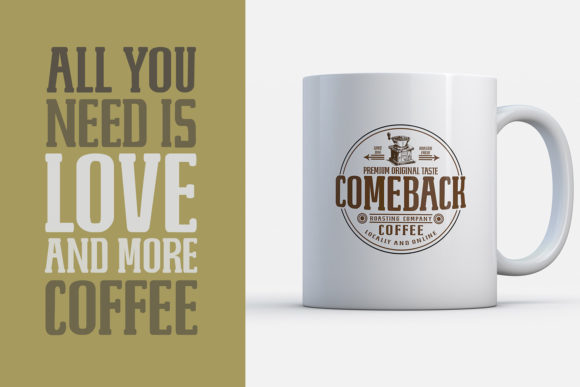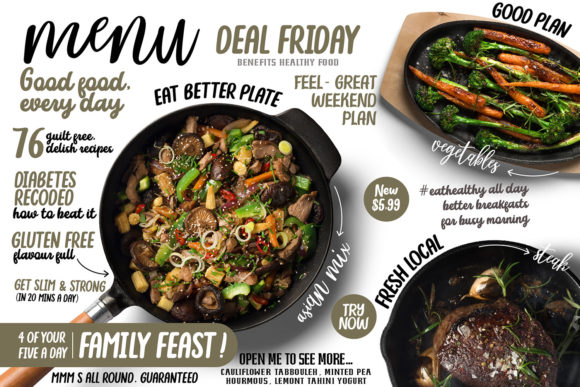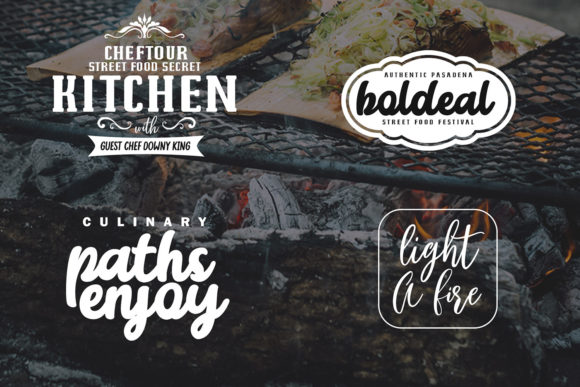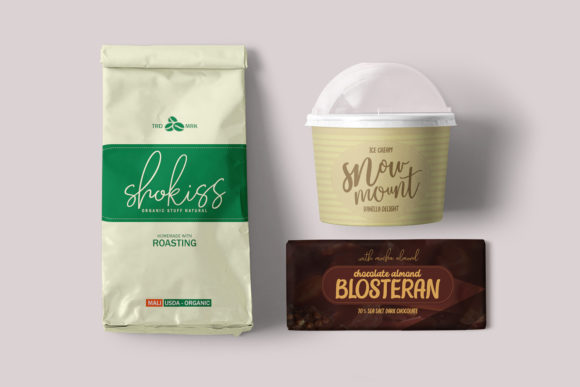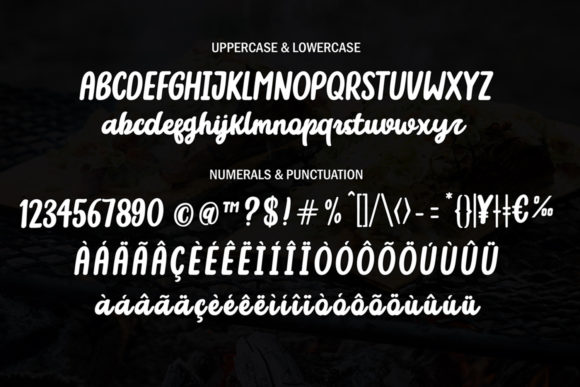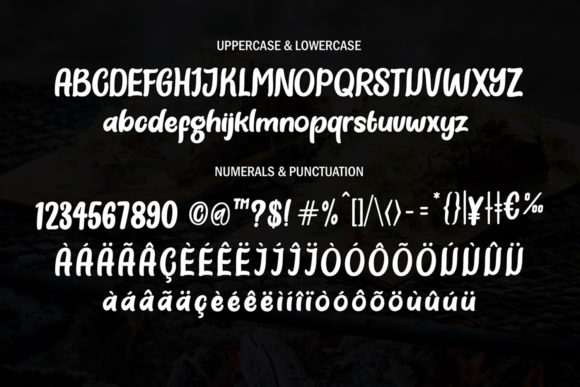
Introducing Belanda Font: A Stunning Slab Serif and Monoline Script Font Package
Are you tired of using the same old fonts for your design projects? Look no further than the Belanda Font package! This beautiful collection includes high-quality script and slab serif fonts, along with a monoline font, making it the perfect addition to your font library. In this article, we’ll dive into the features and benefits of the Belanda Font package and explore how it can elevate your designs.
What is Belanda Font?
Belanda is a unique font package that combines the elegance of slab serif fonts with the playfulness of monoline script fonts. The package includes a range of fonts that can be used to create interesting titles, logotypes, and display text. Whether you’re a designer, crafty DIY enthusiast, or simply someone who loves to create, Belanda Font is the perfect tool to help you bring your ideas to life.
Key Features of Belanda Font
- Slab Serif Font: The slab serif font in the Belanda package is perfect for creating bold and eye-catching titles. Its clean lines and geometric shape make it highly legible, even at small sizes.
- Monoline Script Font: The monoline script font adds a touch of elegance and sophistication to any design. Its fluid lines and connected letters make it perfect for creating beautiful logotypes and display text.
- Script Font: The script font in the package is perfect for adding a personal touch to your designs. With its flowing lines and cursive letters, it’s ideal for creating invitations, quotes, and other creative projects.
- PUA Encoded: The Belanda Font package is PUA (Private Use Area) encoded, which means you can access all of the glyphs and swashes with ease. This makes it simple to customize your designs and add unique touches.
Benefits of Using Belanda Font
So why choose Belanda Font for your design projects? Here are just a few benefits of using this amazing font package:
- Versatility: With multiple font styles and a range of glyphs and swashes, Belanda Font is incredibly versatile. You can use it to create a wide range of designs, from bold titles to elegant logotypes.
- High-Quality: The Belanda Font package is made up of high-quality fonts that are designed to look great at any size. Whether you’re creating a billboard or a business card, Belanda Font will deliver.
- Ease of Use: The PUA encoding makes it easy to access all of the glyphs and swashes, so you can focus on creating amazing designs rather than getting bogged down in technical details.
- Time-Saving: With Belanda Font, you can create professional-looking designs in no time. The package includes a range of pre-designed glyphs and swashes, so you don’t have to spend hours creating them from scratch.
How to Use Belanda Font
Using Belanda Font is easy! Here are a few tips to get you started:
- Pairing Fonts: Experiment with pairing the different fonts in the Belanda package to create unique and interesting combinations.
- Adding Glyphs and Swashes: Use the PUA encoding to access the glyphs and swashes and add a personal touch to your designs.
- Experimenting with Sizes: Don’t be afraid to experiment with different font sizes to create visual interest and hierarchy in your designs.
Who is Belanda Font for?
Belanda Font is perfect for:
- Graphic Designers: Whether you’re working on a client project or building your own brand, Belanda Font is a great addition to your font library.
- Crafty DIY Enthusiasts: If you love to create and make things, Belanda Font is a great way to add a professional touch to your projects.
- Small Business Owners: If you’re looking for a way to elevate your brand and create a unique visual identity, Belanda Font is a great choice.
| Font Name | Belanda Font |
In conclusion, Belanda Font is an amazing font package that offers a unique combination of slab serif, monoline script, and script fonts. With its high-quality design, PUA encoding, and versatility, it’s perfect for designers, crafty DIY enthusiasts, and small business owners. Whether you’re looking to create bold titles, elegant logotypes, or simply add a personal touch to your designs, Belanda Font is the perfect tool for the job.